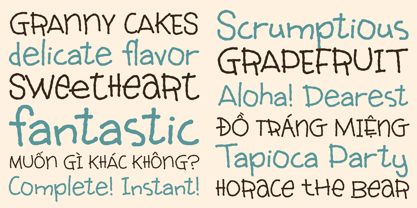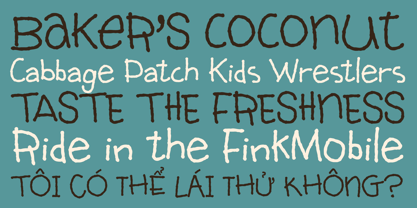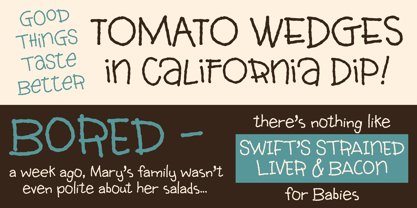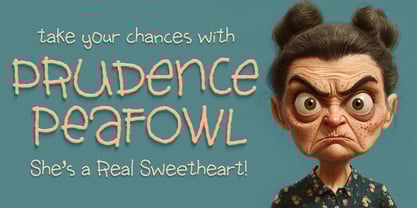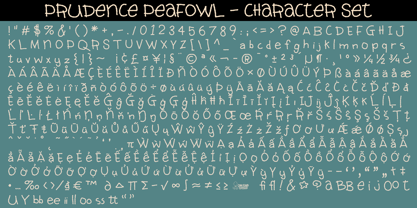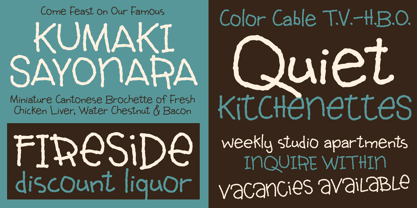
Prudence Peafowl
by One Eyed Squid
The Prudence Peafowl Font Family was designed by Brian J. Bonislawsky, Dave Cohen and published by One Eyed Squid. Prudence Peafowl contains 2 styles and family package options.
Prudence Peafowl is a real sweetheart, when you get to know her.
She comes in two flavors: a Regular style that speaks to her endearing and clumsy personality, and an alternate Caps version that is loaded with assertive spunk! Use them independently, or mix them together for some extra funkiness. You'll find Prudence's personality will grow on you.
(Prudence Peafowl contains an extended Latin character set with added Vietnamese support.)
Designers: Brian J. Bonislawsky, Dave Cohen
Publisher: One Eyed Squid
Foundry: One Eyed Squid
Design Owner: One Eyed Squid